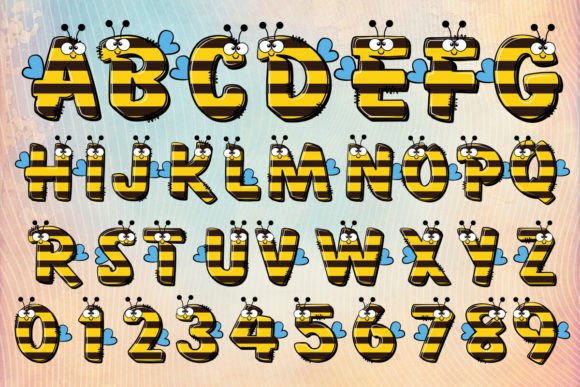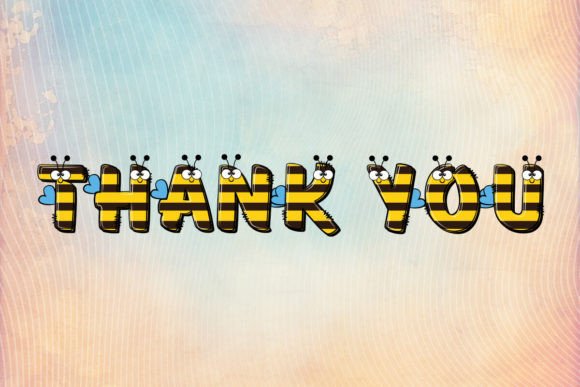
Introducing Bumble Bee Font: The Sweetest Addition to Your Design Projects
Are you tired of using the same old fonts in your design projects? Look no further! We’re thrilled to introduce the Bumble Bee Font, a charming typeface that’s sure to add a touch of whimsy and playfulness to your creations. Inspired by the lovable honey bee, this font is the perfect blend of innocence, humor, and cuteness.
The Story Behind Bumble Bee Font
The Bumble Bee Font is designed to evoke the feeling of back-to-school simplicity, with a dash of humor and cuteness. The font’s creator aimed to craft a typeface that’s both fun and captivating, making it perfect for designers and crafters who want to add a personal touch to their work. Whether you’re designing a logo, creating a social media graphic, or crafting a handmade project, the Bumble Bee Font is sure to make your work stand out.
What Makes Bumble Bee Font So Special?
So, what sets the Bumble Bee Font apart from other typefaces? Here are just a few reasons why you’ll love this charming font:
- Whimsical Design: The Bumble Bee Font features a unique, hand-drawn design that’s full of character and personality. Each letter is carefully crafted to resemble the playful, wiggly lines of a honey bee’s flight path.
- Playful and Fun: This font is the perfect choice for projects that require a lighthearted, humorous touch. Imagine using it for a children’s book, a craft project, or a social media graphic that’s sure to bring a smile to people’s faces.
- Cute and Captivating: Let’s face it – the Bumble Bee Font is undeniably cute! Its charming design is sure to capture the hearts of your audience, making your work more relatable and engaging.
- Versatile: Whether you’re designing a logo, a poster, or a digital graphic, the Bumble Bee Font is versatile enough to fit any project. Its unique design works well in a variety of contexts, from formal to informal.
How to Use Bumble Bee Font in Your Design Projects
Now that you’re excited about the Bumble Bee Font, let’s talk about how to use it in your design projects. Here are a few ideas to get you started:
- Logos and Branding: Use the Bumble Bee Font to create a memorable logo or brand identity that’s sure to stand out. Perfect for businesses that want to convey a playful, approachable vibe.
- Social Media Graphics: Add a touch of whimsy to your social media graphics with the Bumble Bee Font. Use it to create eye-catching posts, stories, or ads that are sure to engage your audience.
- Crafting and DIY Projects: If you’re a crafter or DIY enthusiast, the Bumble Bee Font is a great addition to your design toolkit. Use it to create handmade cards, gift tags, or other paper crafts that are sure to delight.
- Children’s Books and Educational Materials: The Bumble Bee Font is perfect for children’s books, educational materials, or activity sheets. Its playful design is sure to capture young imaginations and make learning fun.
Tips and Tricks for Getting the Most Out of Bumble Bee Font
To help you get the most out of the Bumble Bee Font, here are a few tips and tricks:
- Experiment with Colors: The Bumble Bee Font looks great in a variety of colors, from bright and bold to soft and pastel. Experiment with different color schemes to find the perfect combination for your project.
- Mix and Match with Other Fonts: Don’t be afraid to combine the Bumble Bee Font with other typefaces to create a unique look. Try pairing it with a clean, sans-serif font for a striking contrast.
- Use it in Combination with Images: The Bumble Bee Font looks great in combination with images, especially those featuring nature, flowers, or insects. Use it to add a touch of personality to your graphics and illustrations.
| Font Name | Bumble Bee Font |
| Author | october.store |
In conclusion, the Bumble Bee Font is a charming typeface that’s sure to add a touch of whimsy and playfulness to your design projects. With its unique design, playful personality, and versatility, this font is perfect for designers, crafters, and DIY enthusiasts alike. So why not give it a try? Download the Bumble Bee Font today and see how it can make your work buzz with creativity!